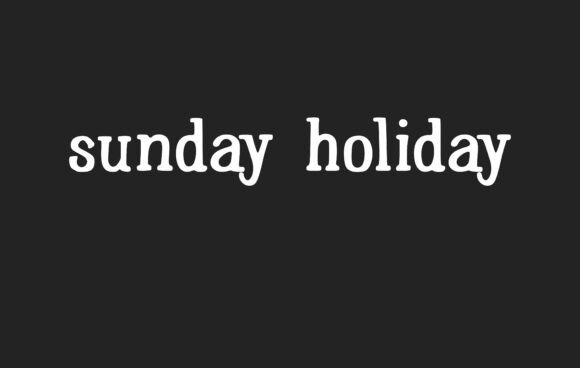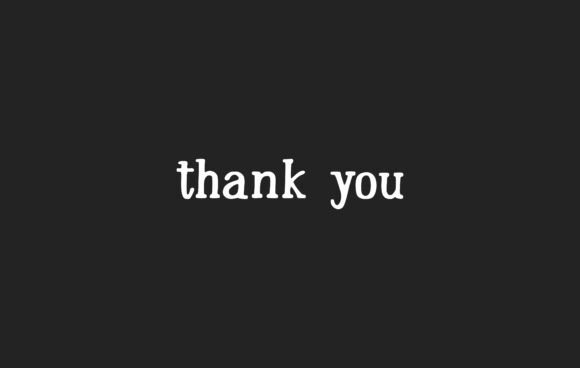
Introduction to Kiddo Craft Font
Kiddo Craft font is an authentic handwritten font with a romantic touch.
Key Features of Kiddo Craft Font
Why Choose Kiddo Craft Font?
Kiddo Craft Font offers exceptional quality and versatility, making it a valuable addition to your design toolkit. Whether you’re creating for personal projects or commercial use, Kiddo Craft Font delivers professional results.